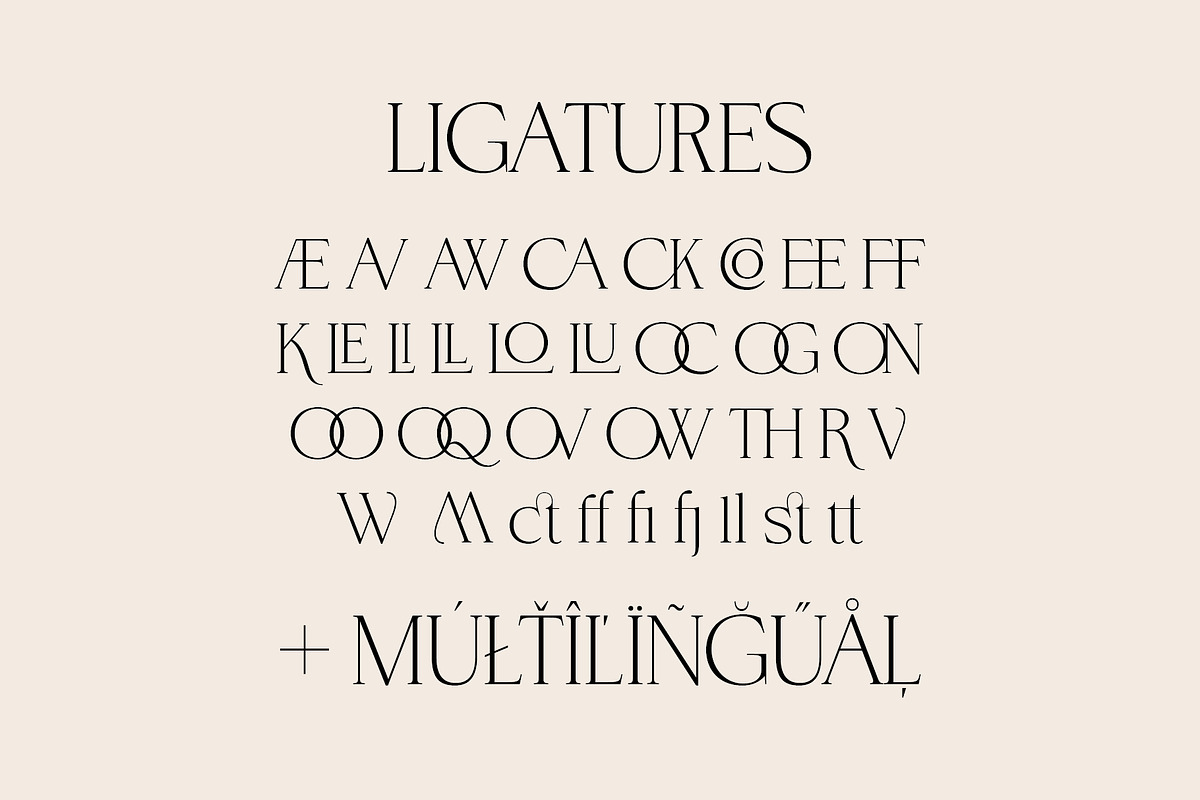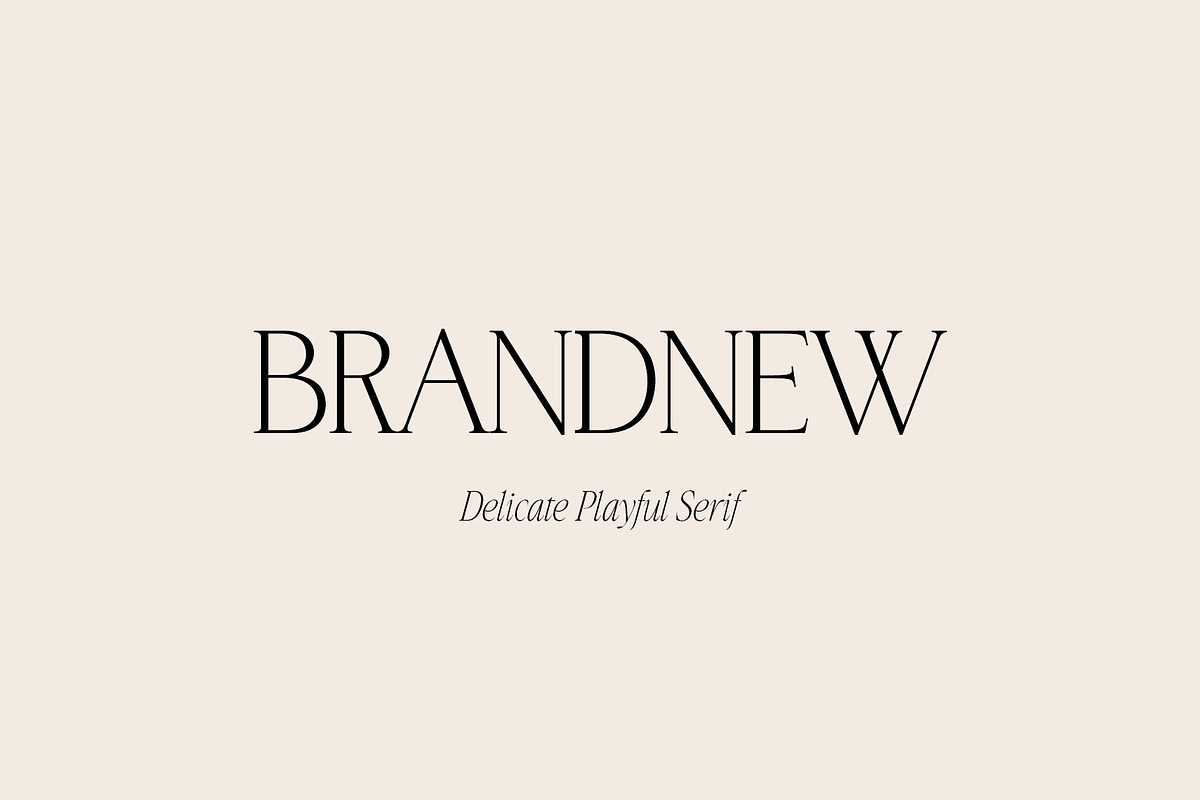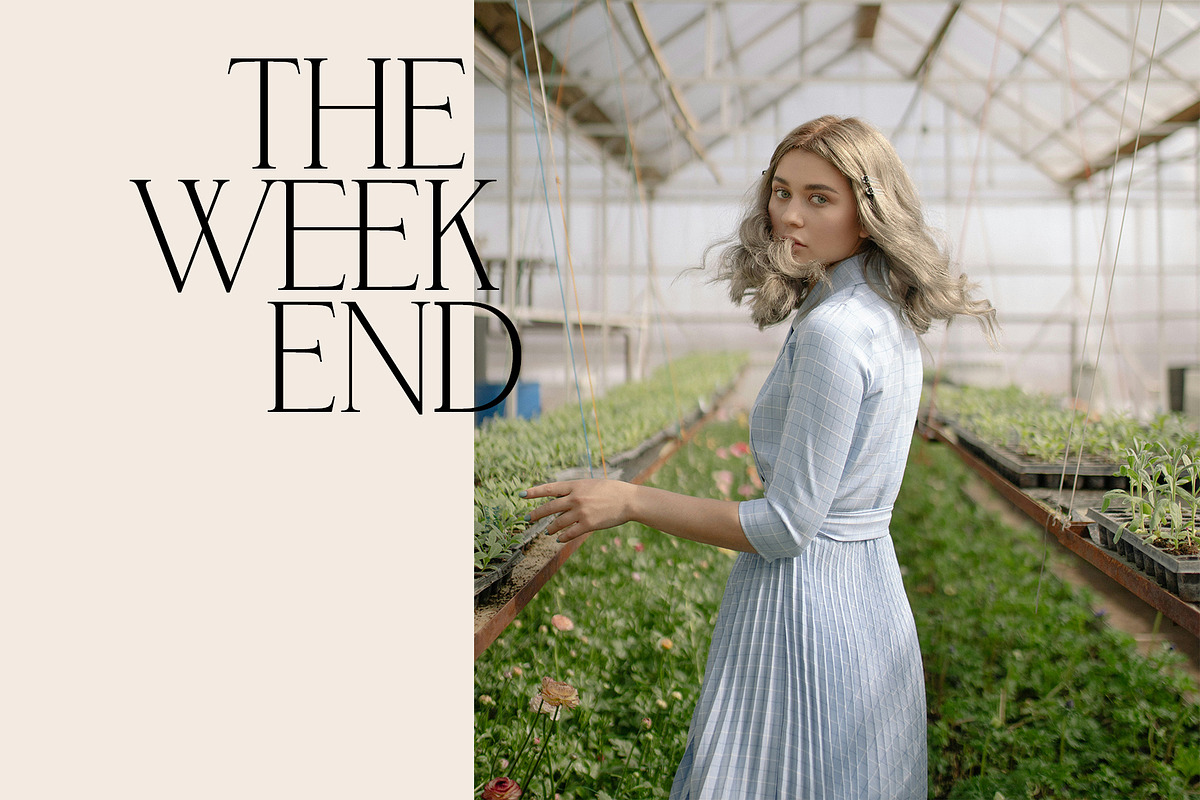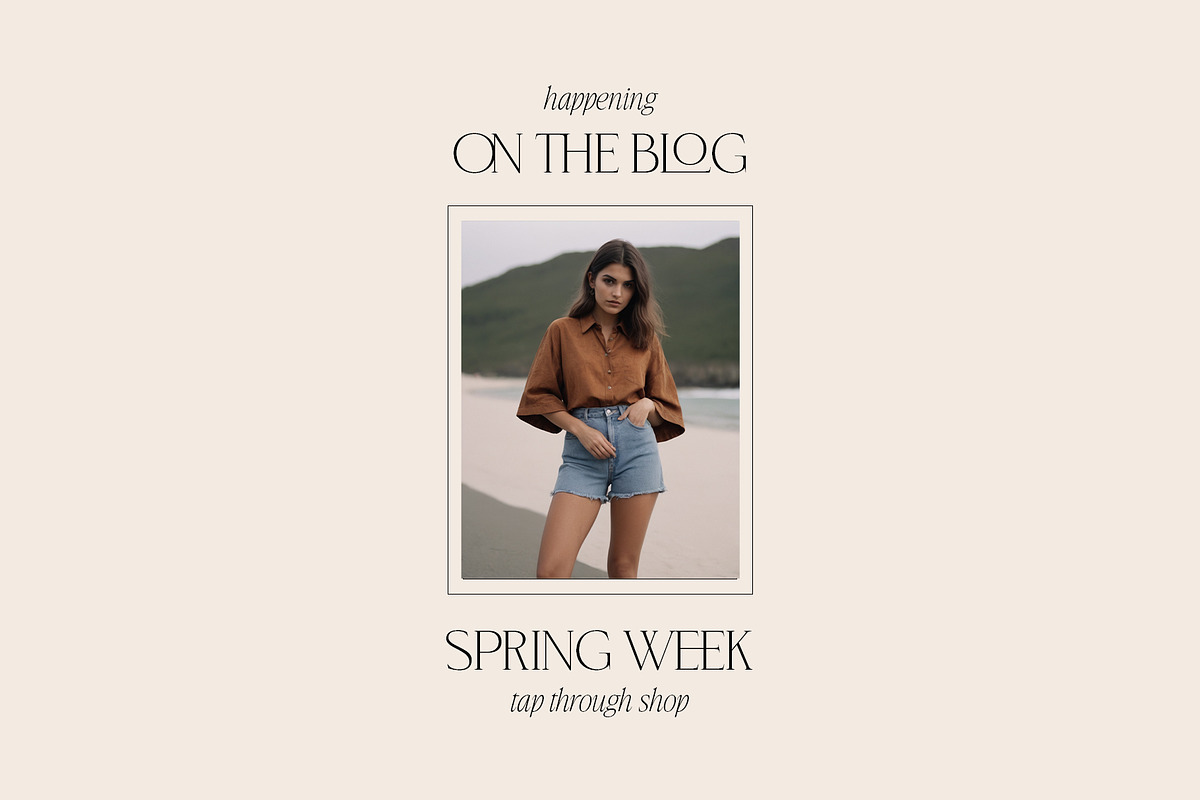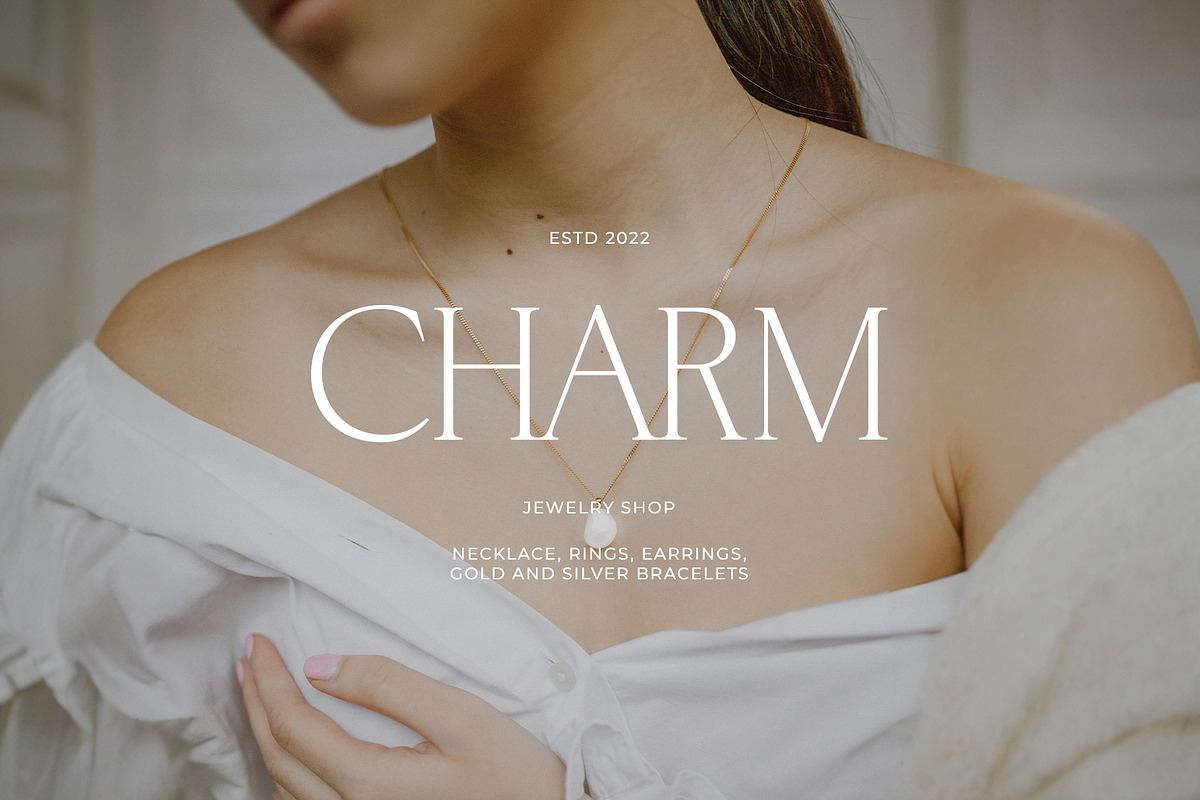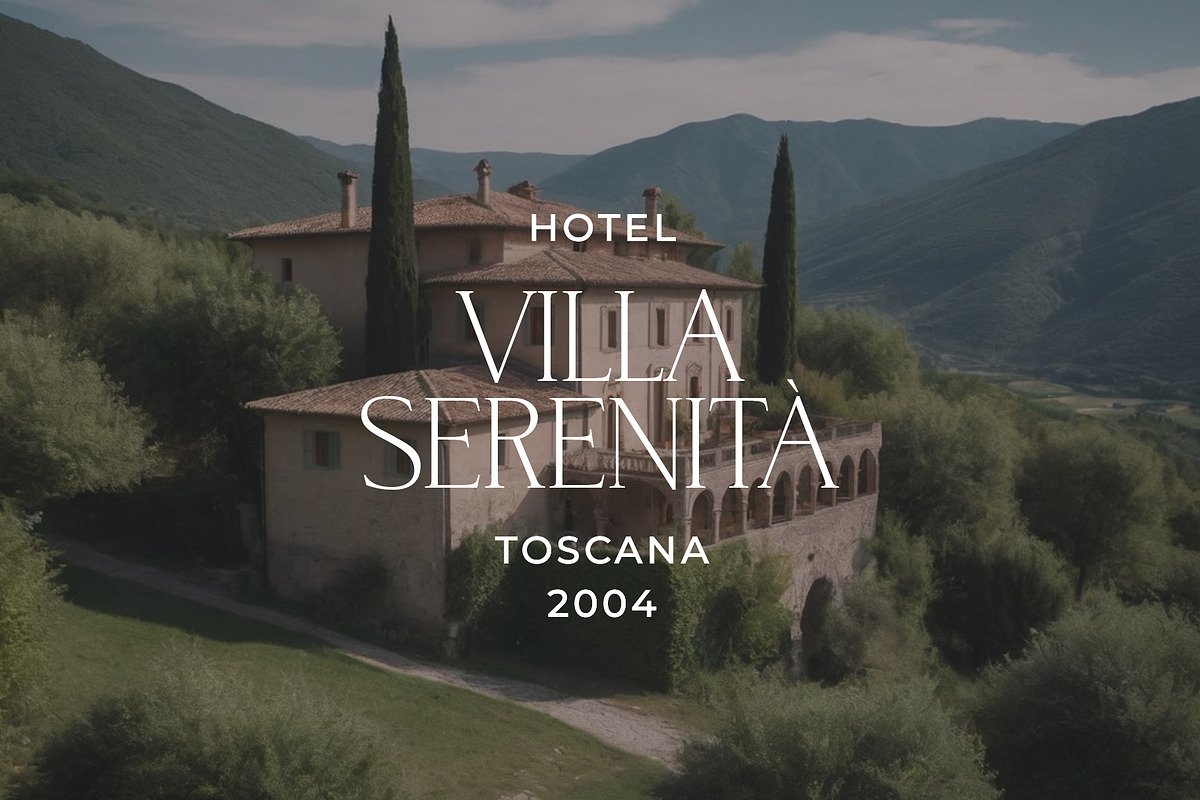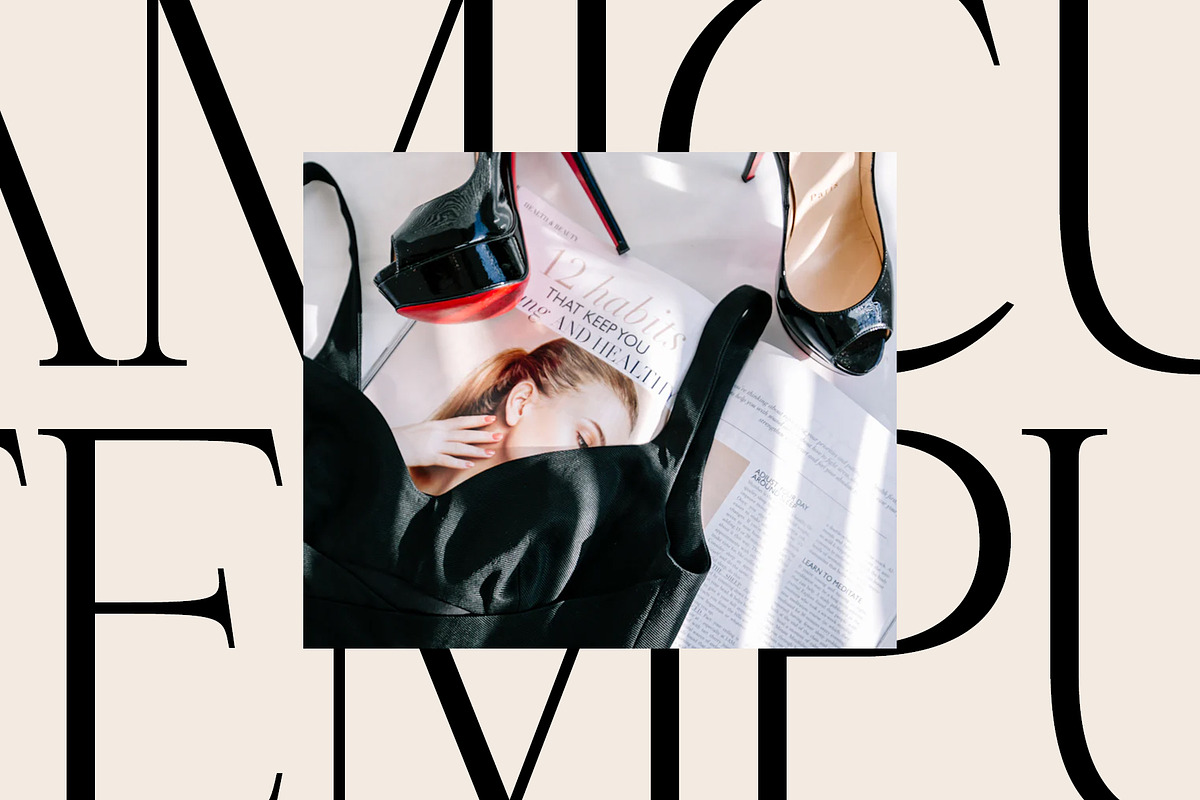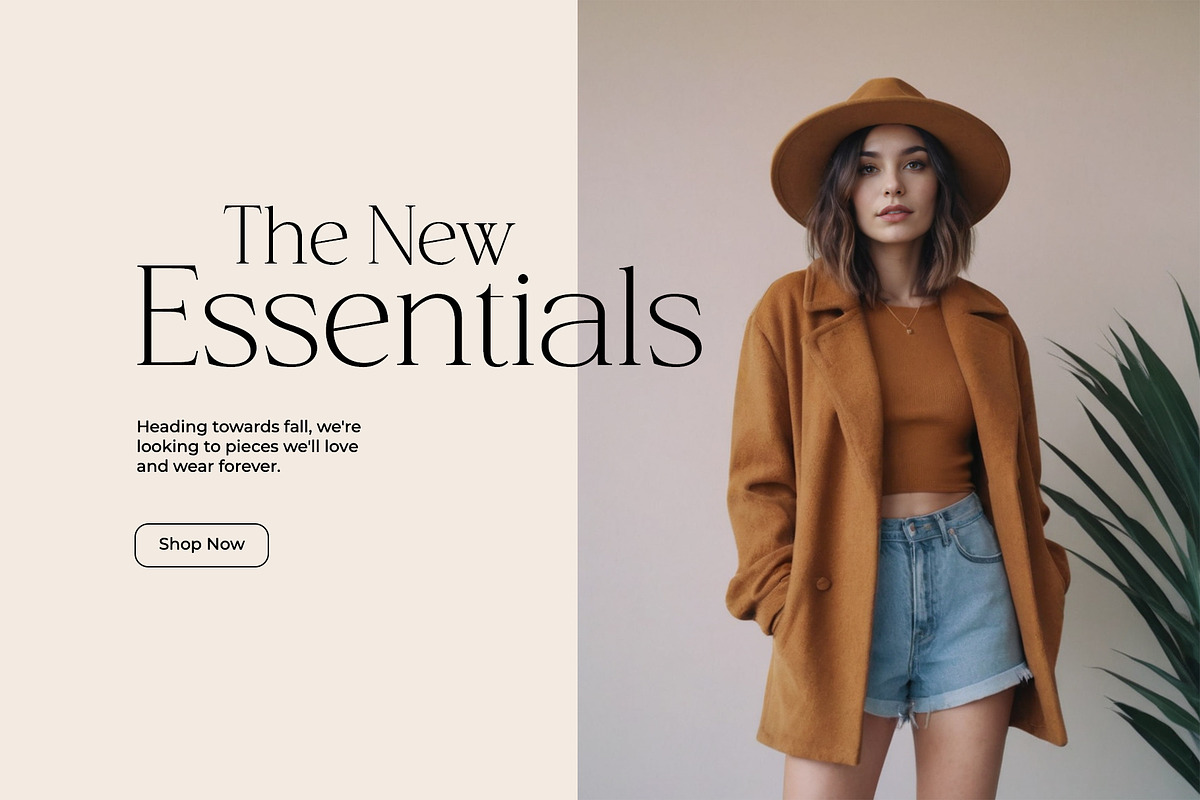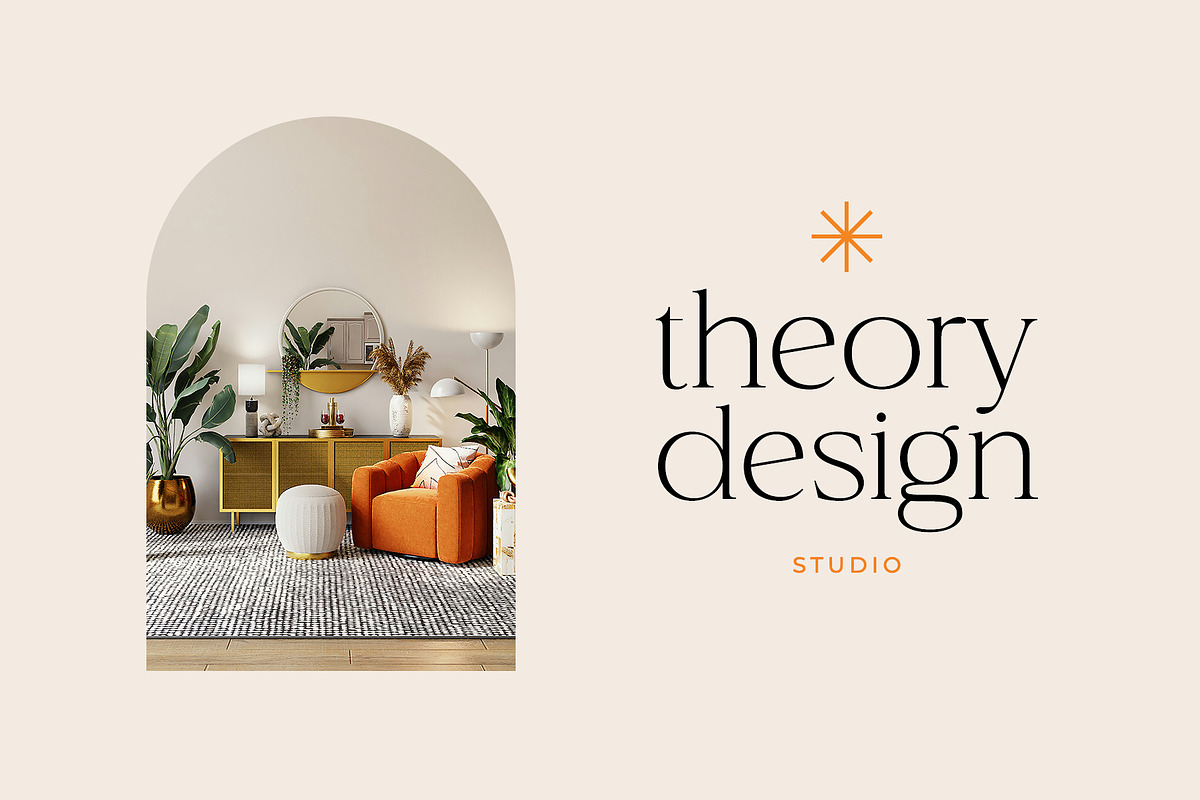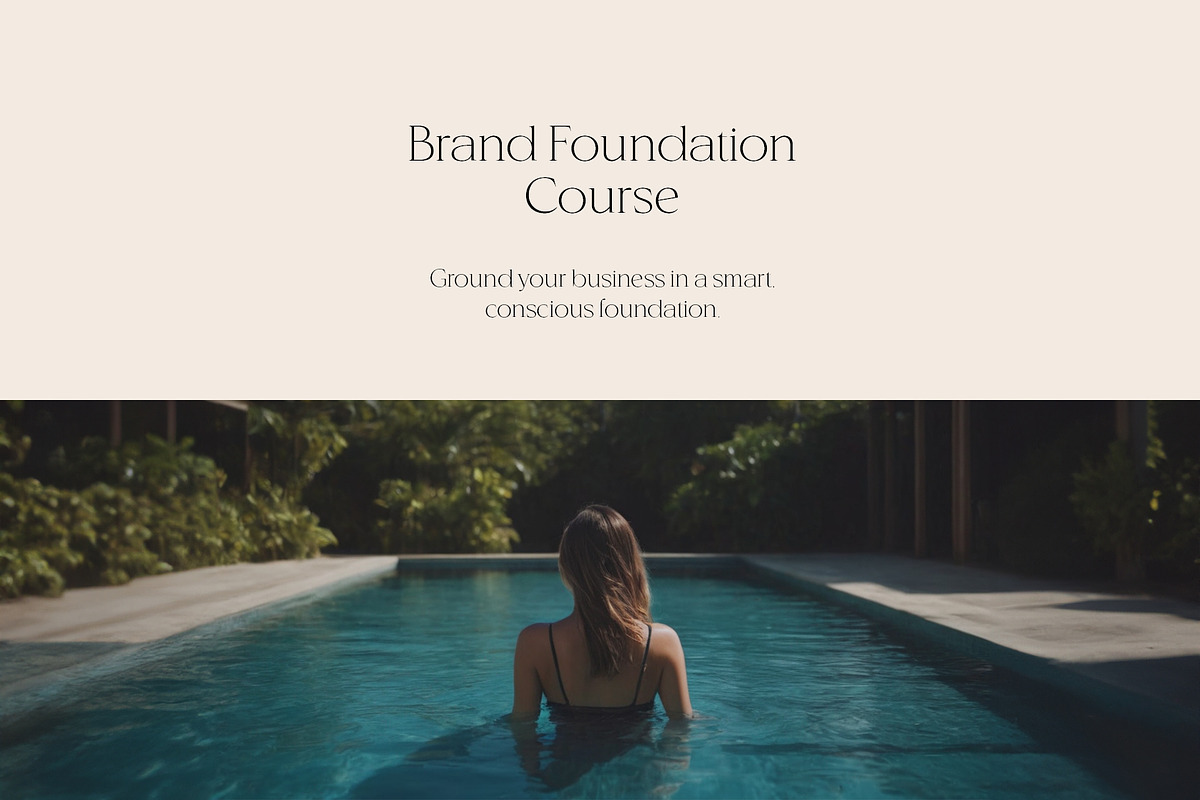
BrandNew Delicate Playful Serif
BrandNew Delicate Playful Serif font!
This is a perfect font for any project. Be sure to click on the image to see all elements. This Serif font was created to help you make your digital images even more beautiful and unique.